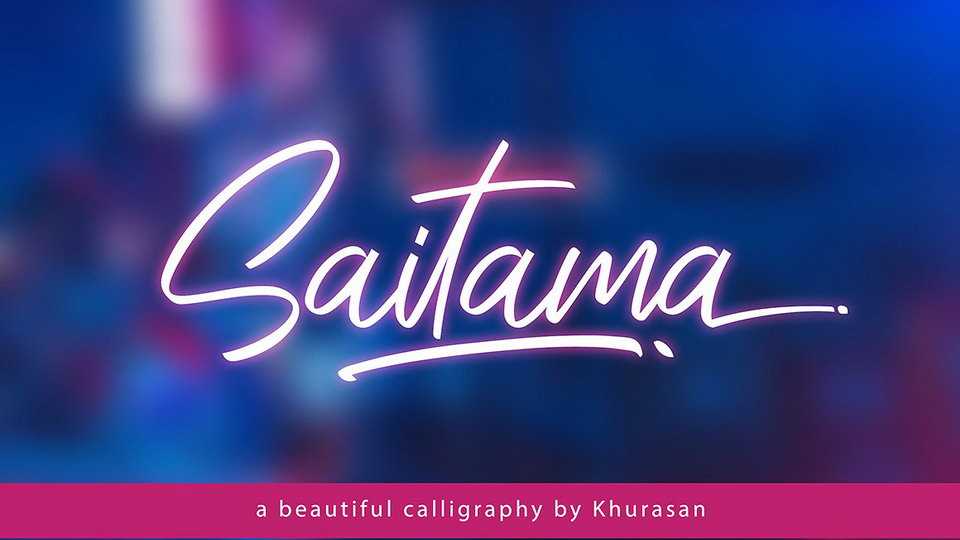
Download Saitama font, an elegant and stylish calligraphy script. Great for personal branding and signature style logos, watermarks, social media, fashion and apparel and more.